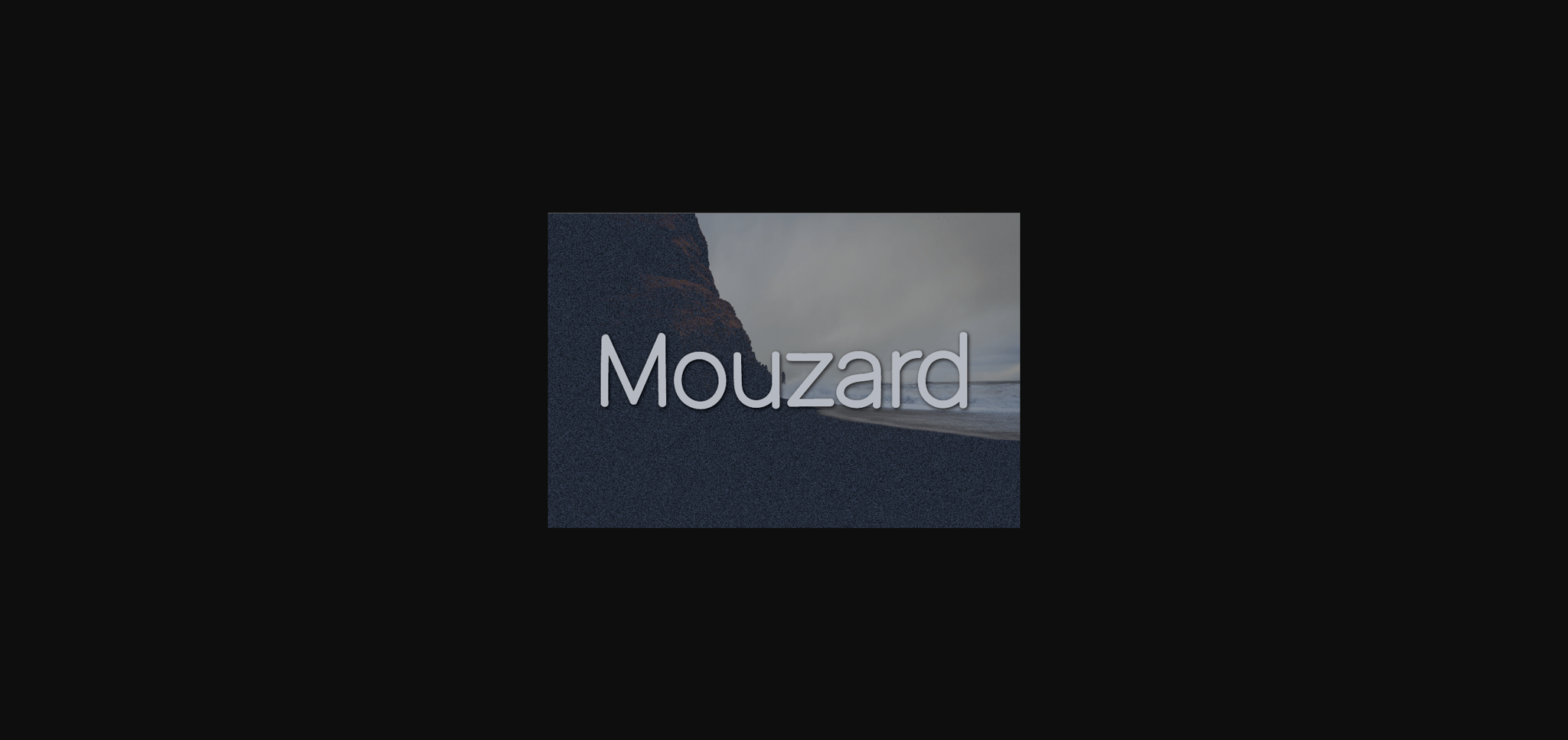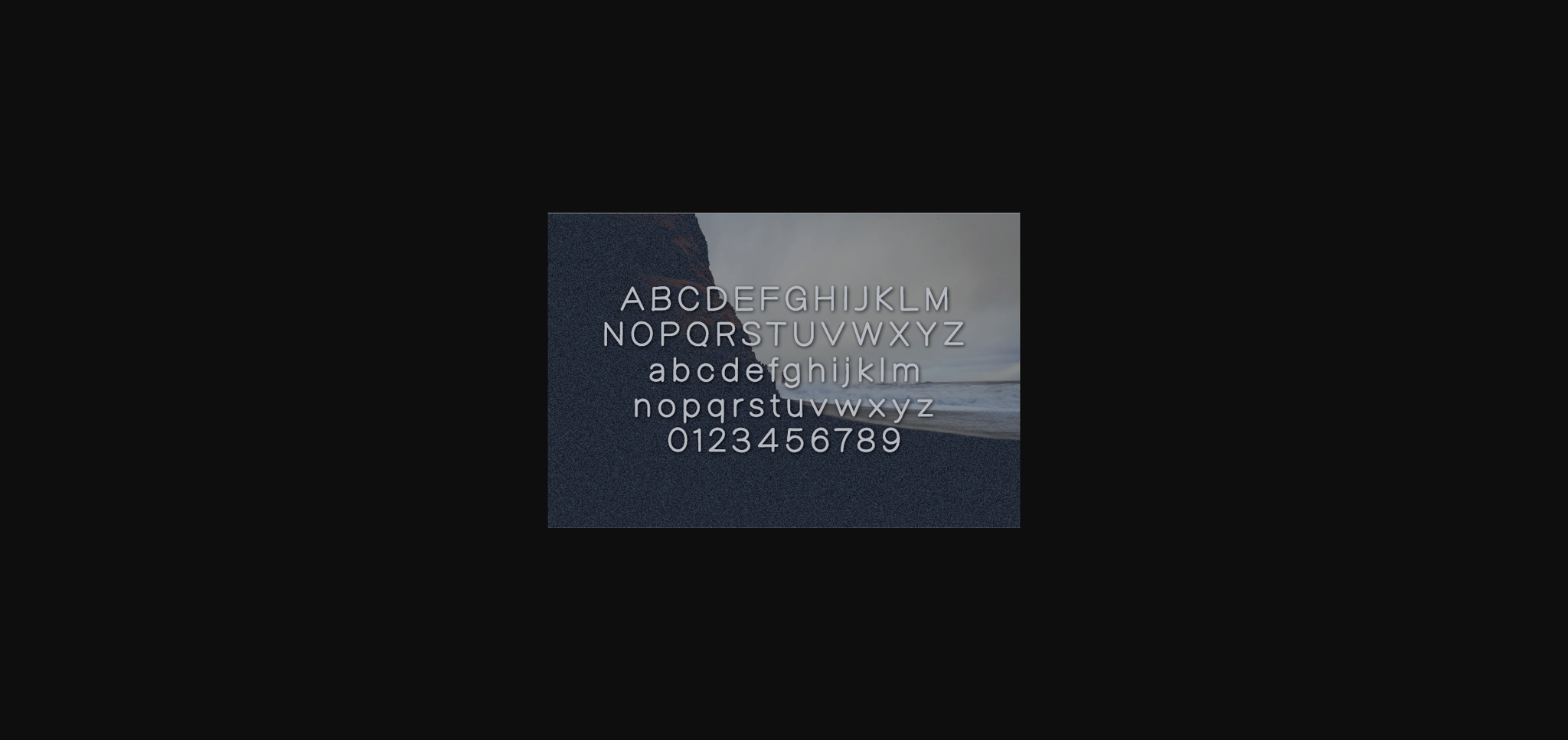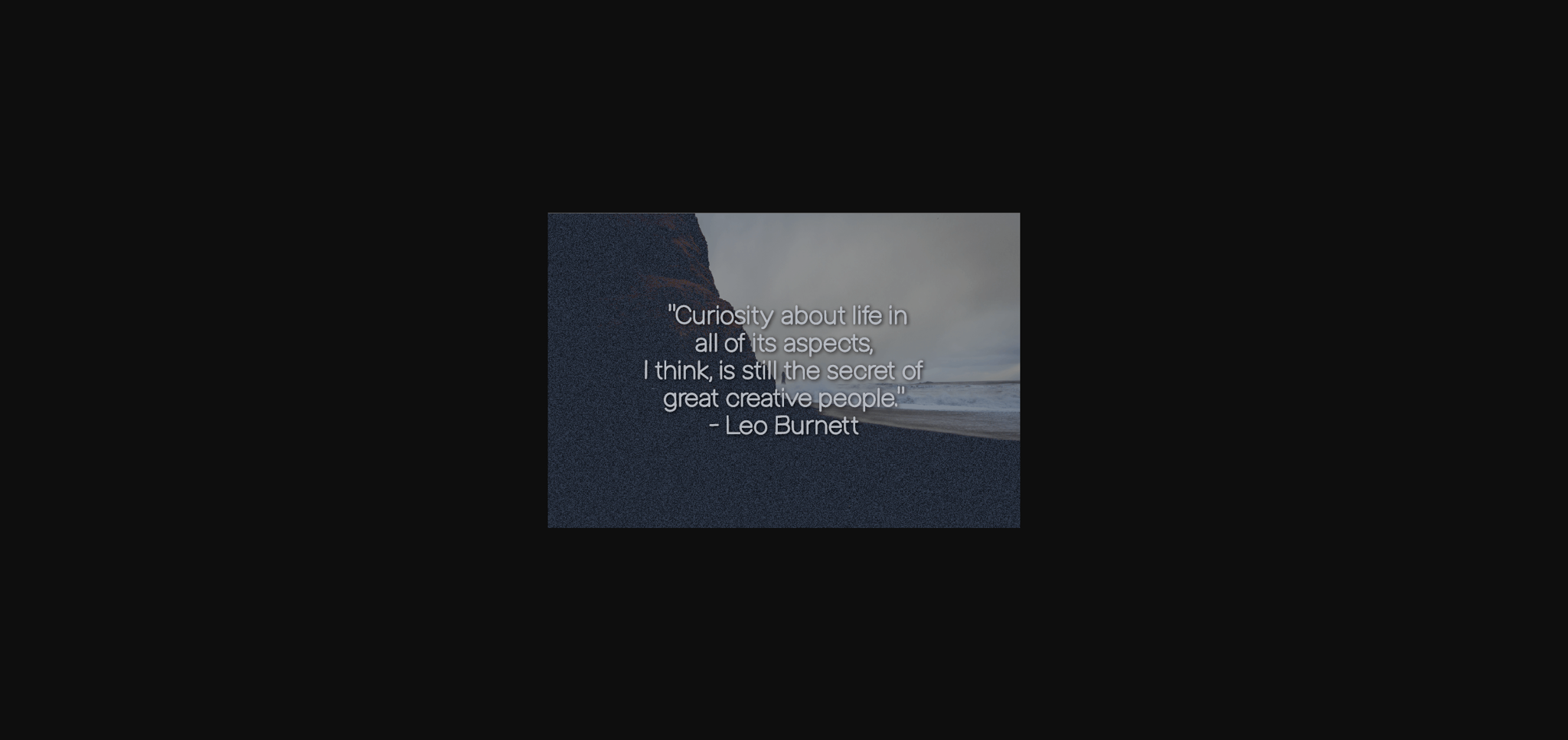
HomeSans Serif FontsMouzard Font Sans Serif Fonts Mouzard Font FacebookXPinterestWhatsApp 1 of 6 ... Mouzard Font Poster 2... Mouzard Font Poster 3... Mouzard Font Poster 4... Mouzard Font Poster 5... Mouzard Font Poster 6... About Mouzard Font Mouzard is a casual and neat sans serif font that impresses through its natural and elegant style. This typeface will enhance your craft with little effort, making your product stand out from the competition. DOWNLOAD NOW People also explored Dakota Font Someone Font San Rafael Samantha Meilani Font Rabbit On The Moon Handricks Font Black Sweet Font Monica Font Solid Dark Grey Bella Canvas 8413 Mockup 301 0 TagsMouzardMouzard Font Previous articleAvocado FontNext articleWednesday Font LEAVE A REPLY Cancel reply Comment: Please enter your comment! Name:* Please enter your name here Email:* You have entered an incorrect email address! Please enter your email address here Website: Save my name, email, and website in this browser for the next time I comment. Personal Use Free Saolice Personal Use Free Read more about this font Klotee Personal Use Free Read more about this font The Sweet Neo Personal Use Free Read more about this font Manhattan Personal Use Free Read more about this font BLOG How to Install and Use Fonts on Windows, macOS, and Web Projects How to Install and Use Fonts on Windows, macOS, and Web Projects Fonts are a crucial part of design and branding. Whether you’re designing a... To increase your work productivity, choose the most readable fonts. Where to Buy American Fonts Online in 2024 Top 7 Google Fonts Alternatives for Faster and Privacy-Friendly Web Design (2025)